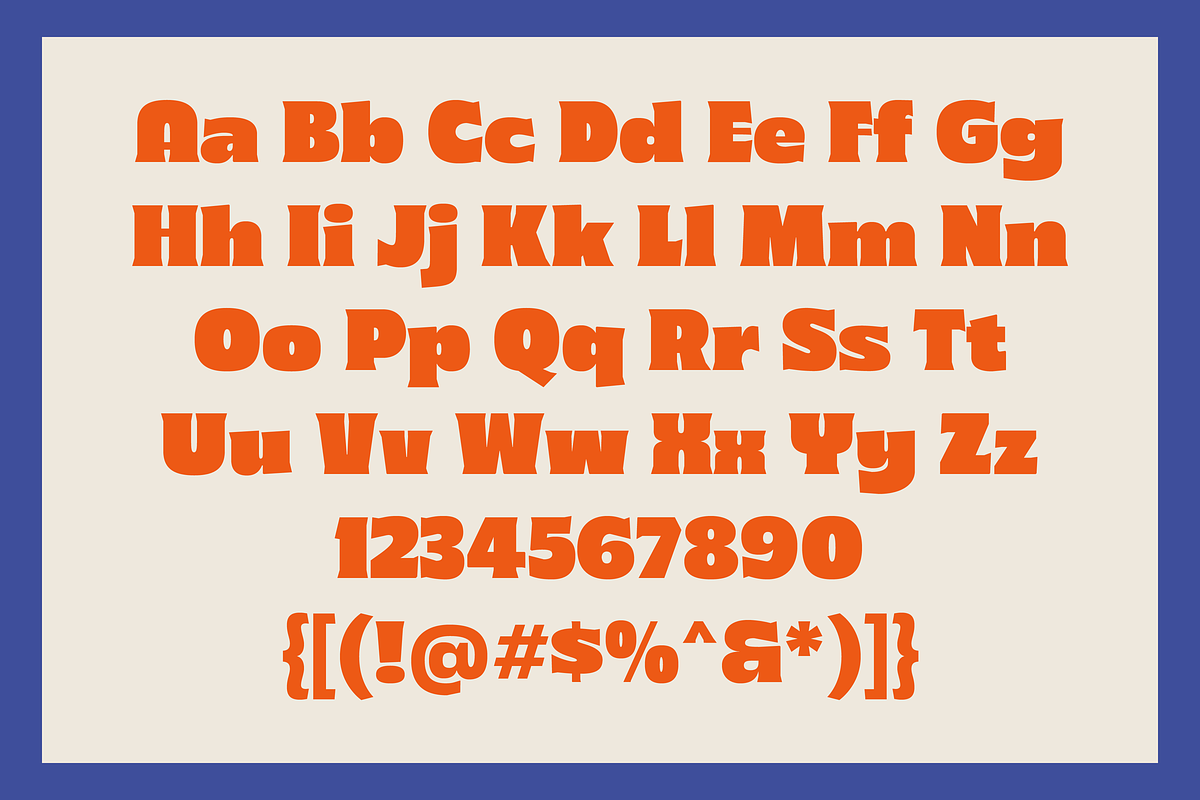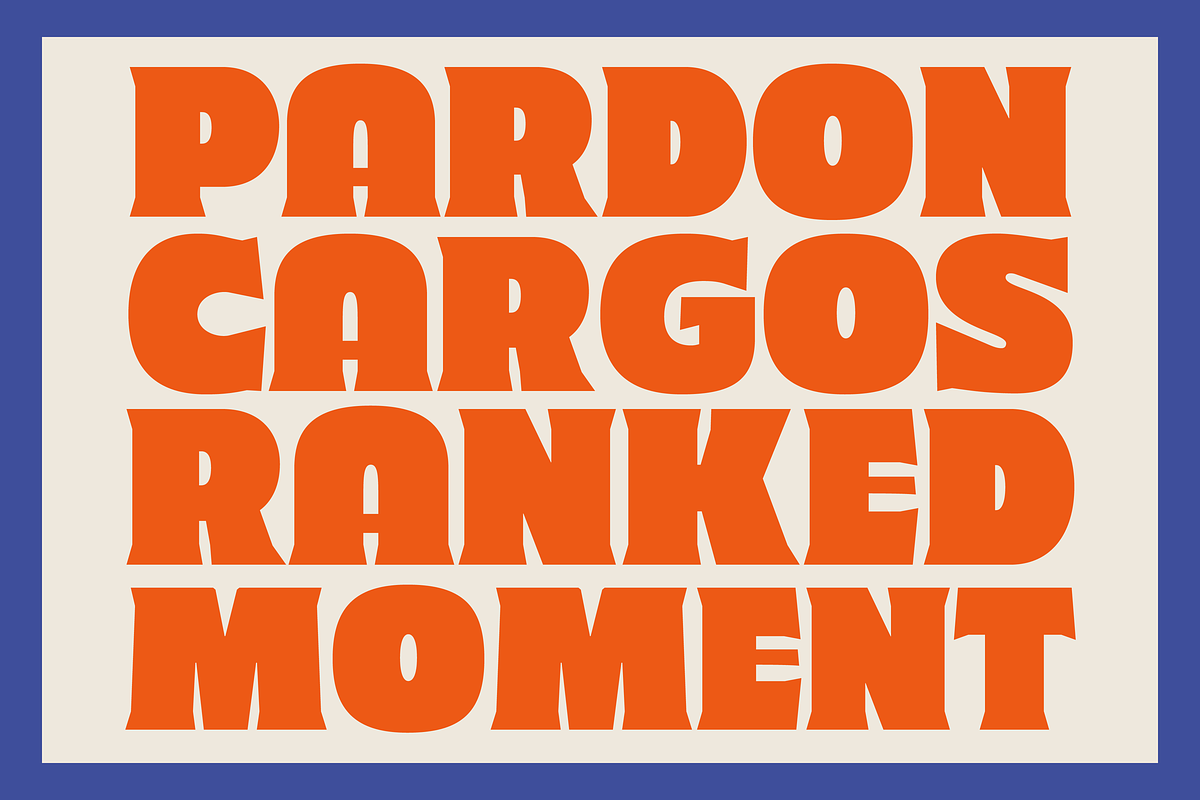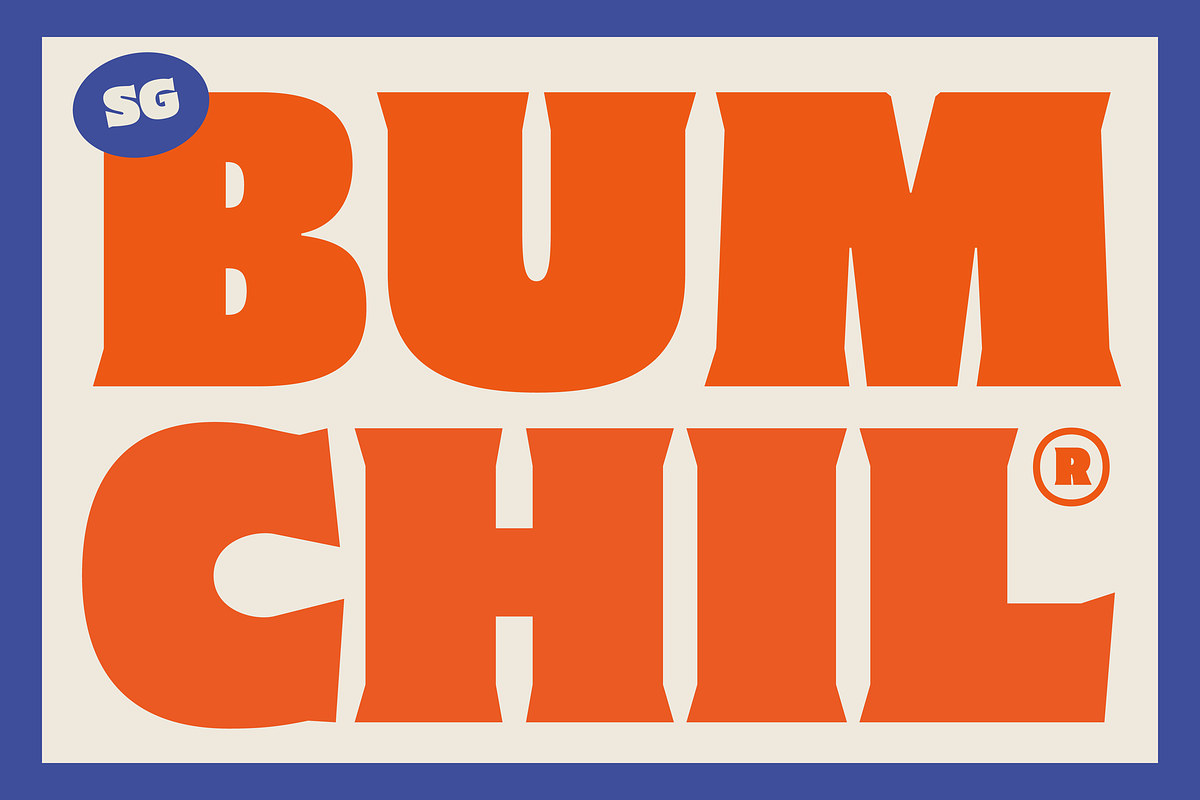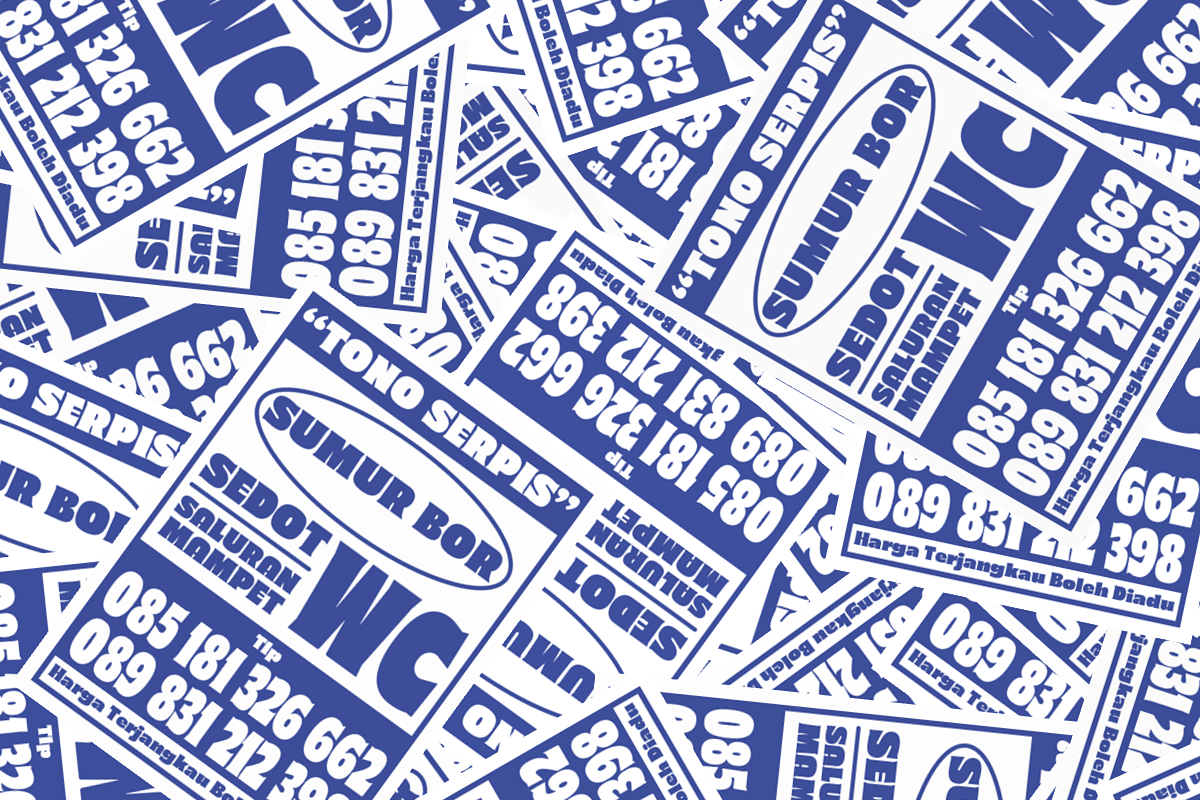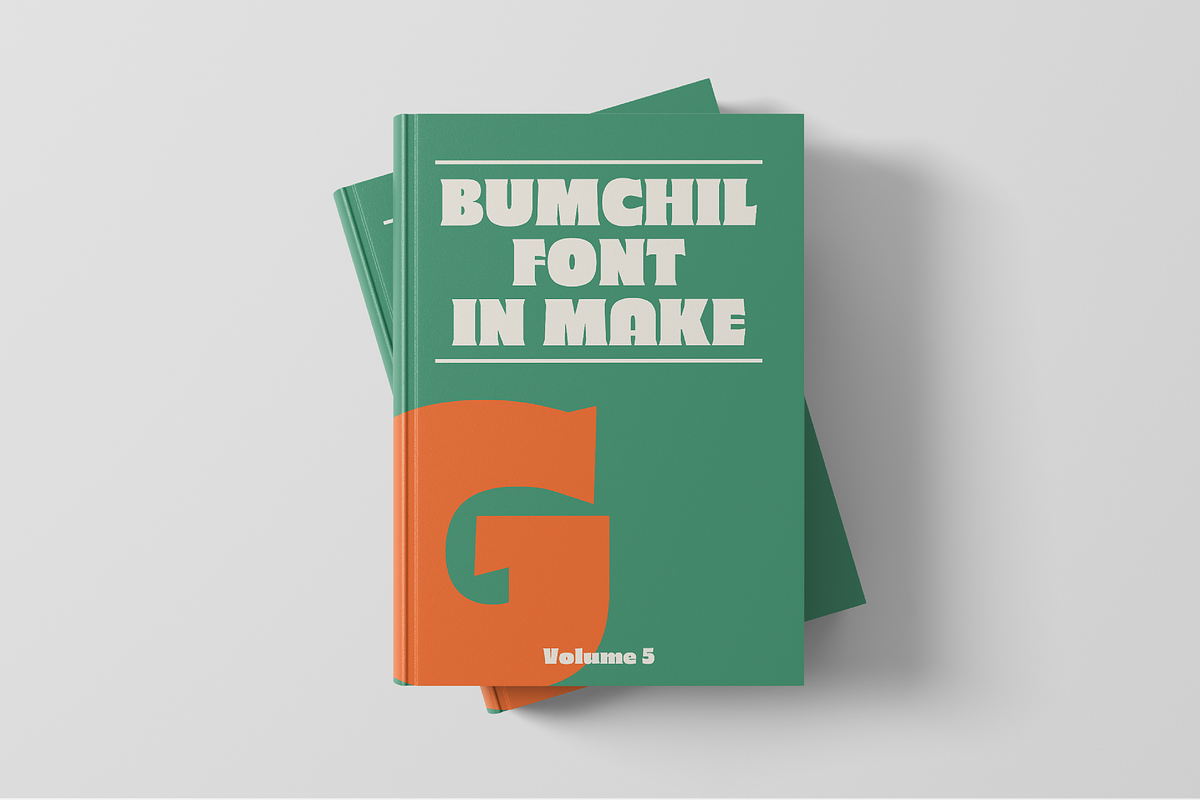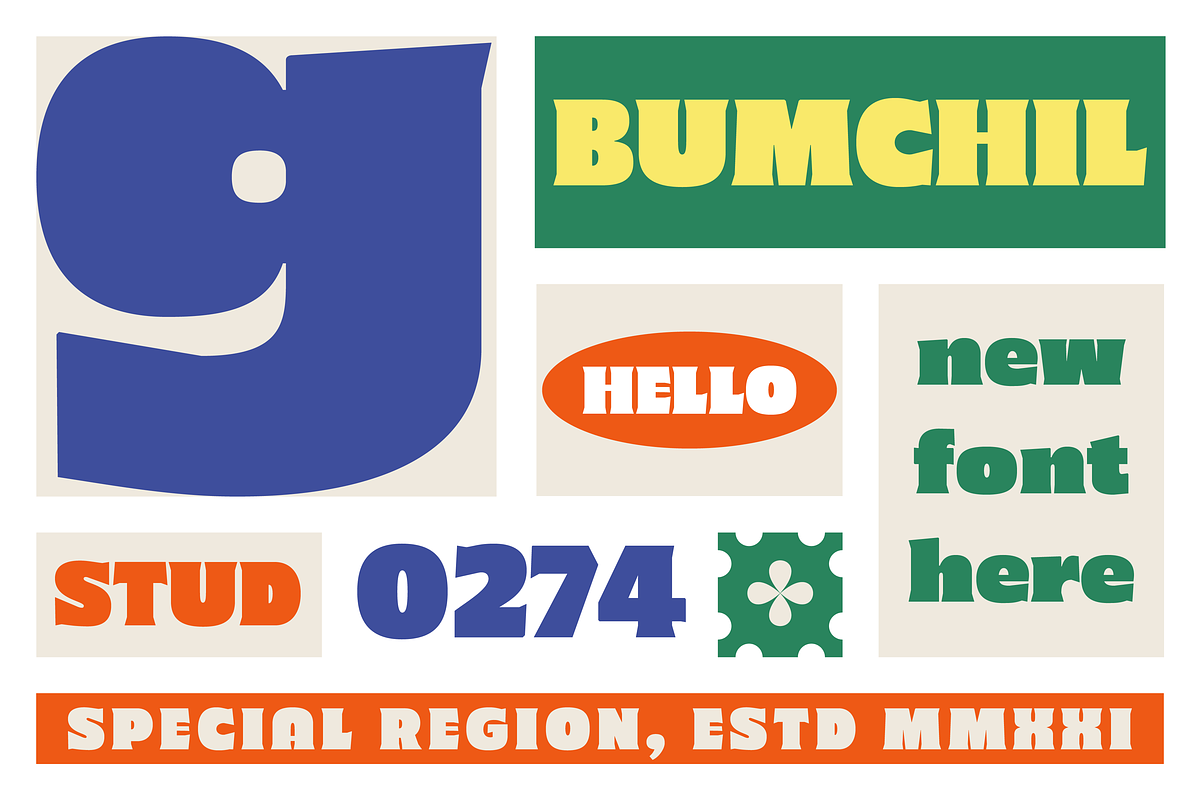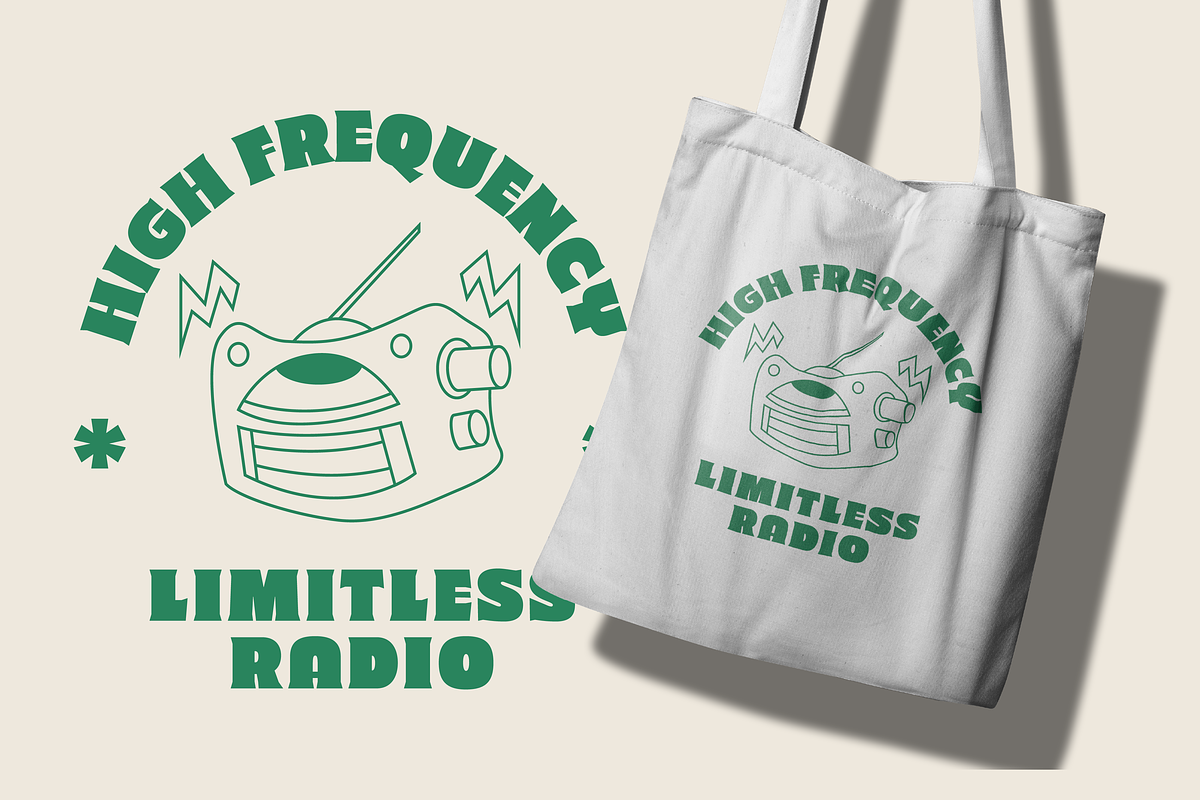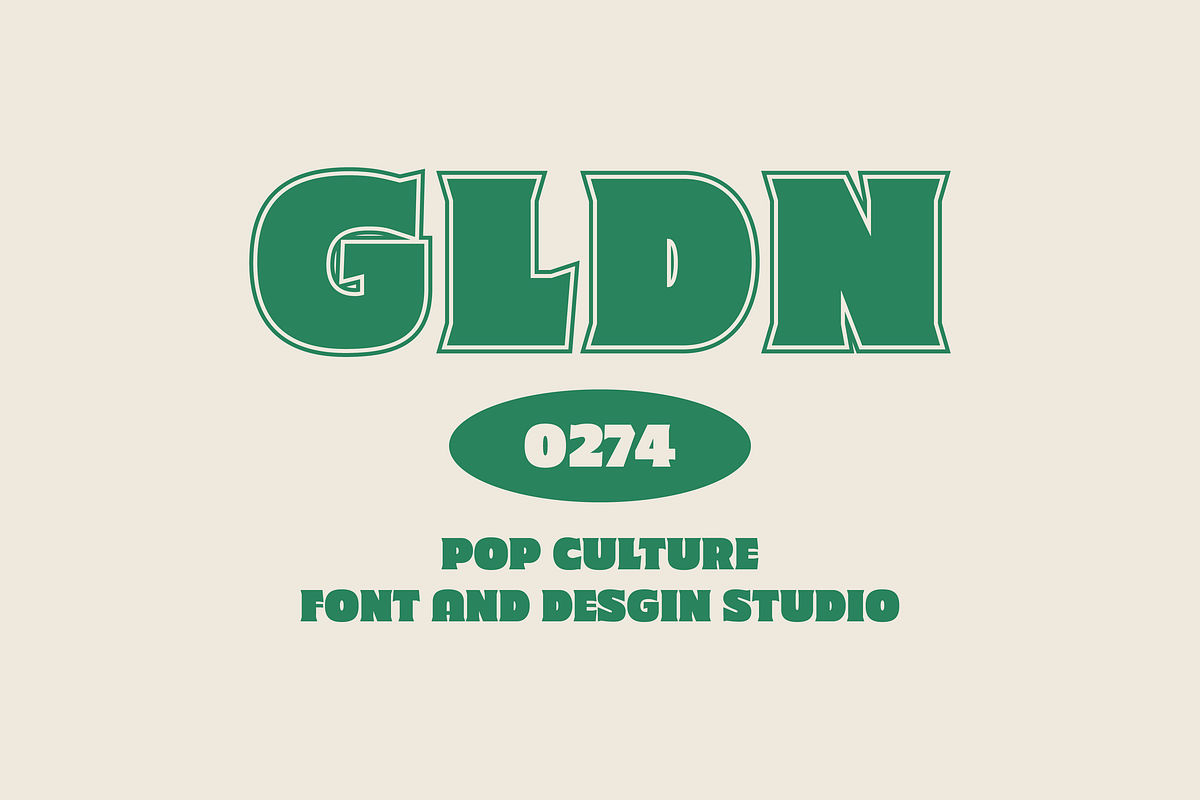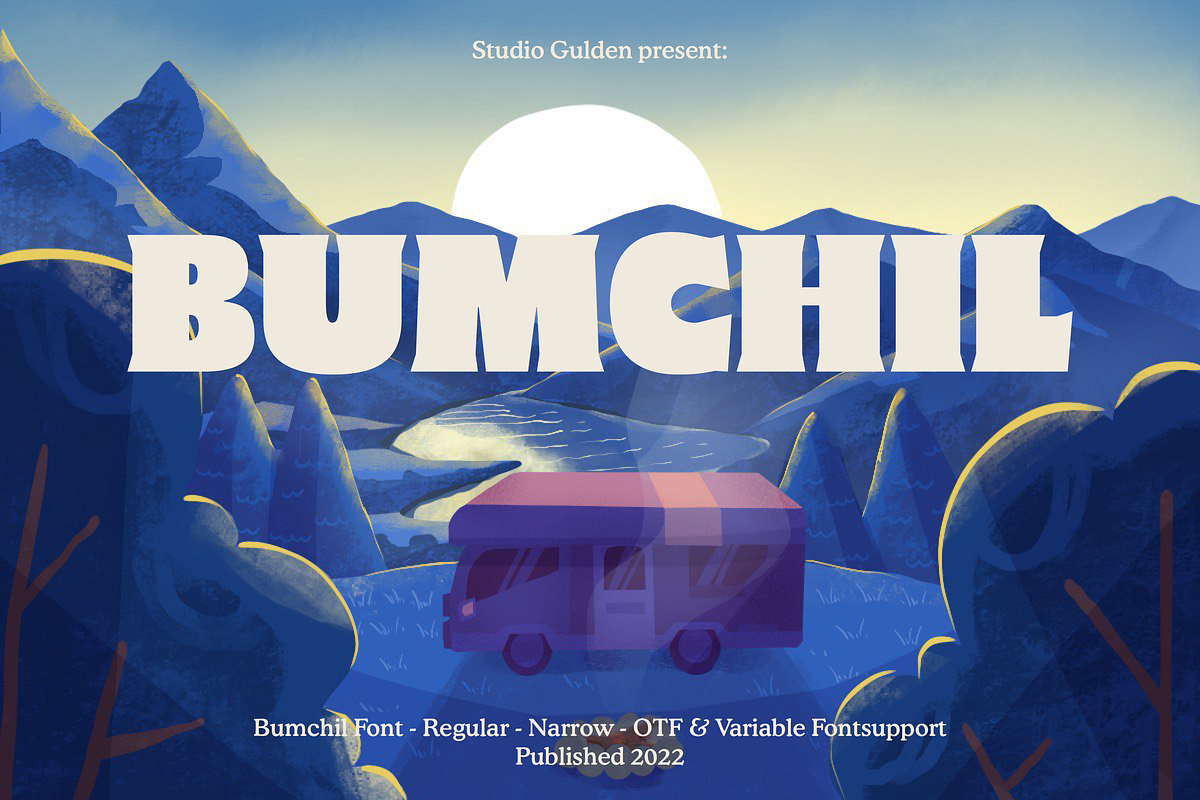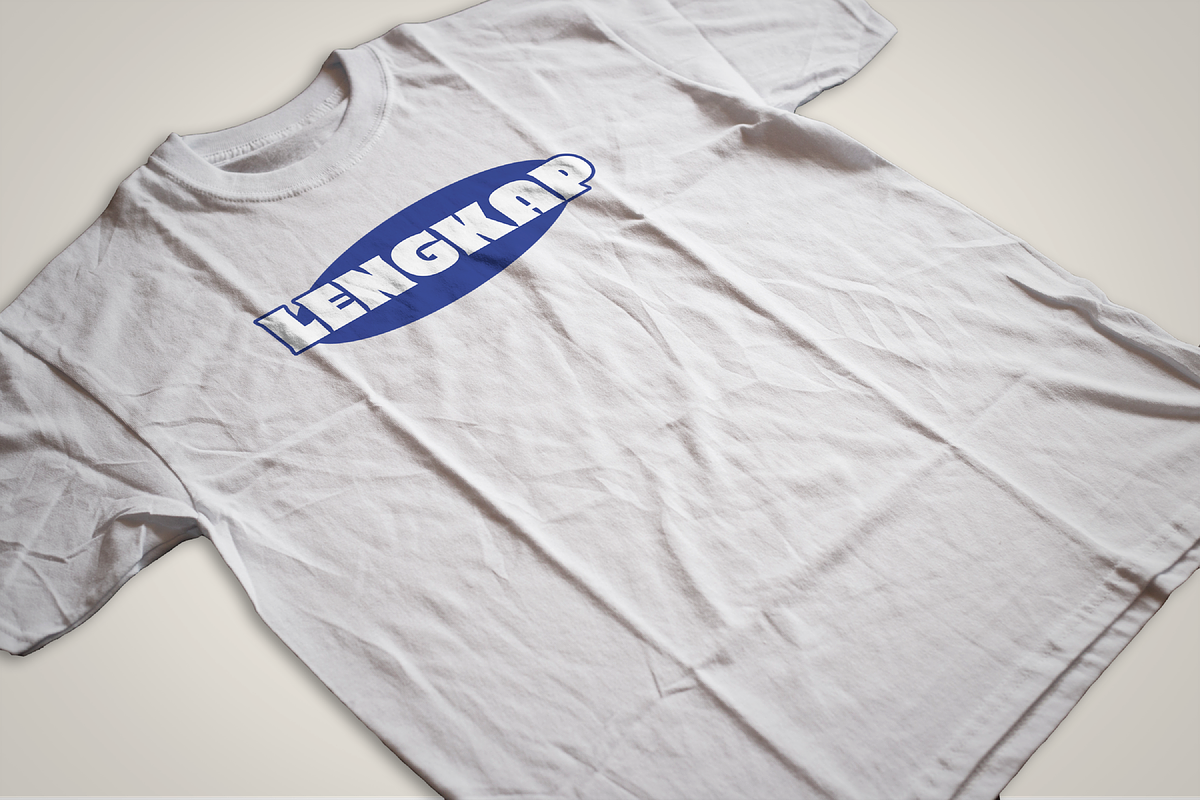
SG - BUMCHIL
SG - BUMCHIL is a display font with 4 various styles for your needs. Bumchil has uppercase and lowercase letters. It’s fun, pop, and playful!
- Narrow and Slanted